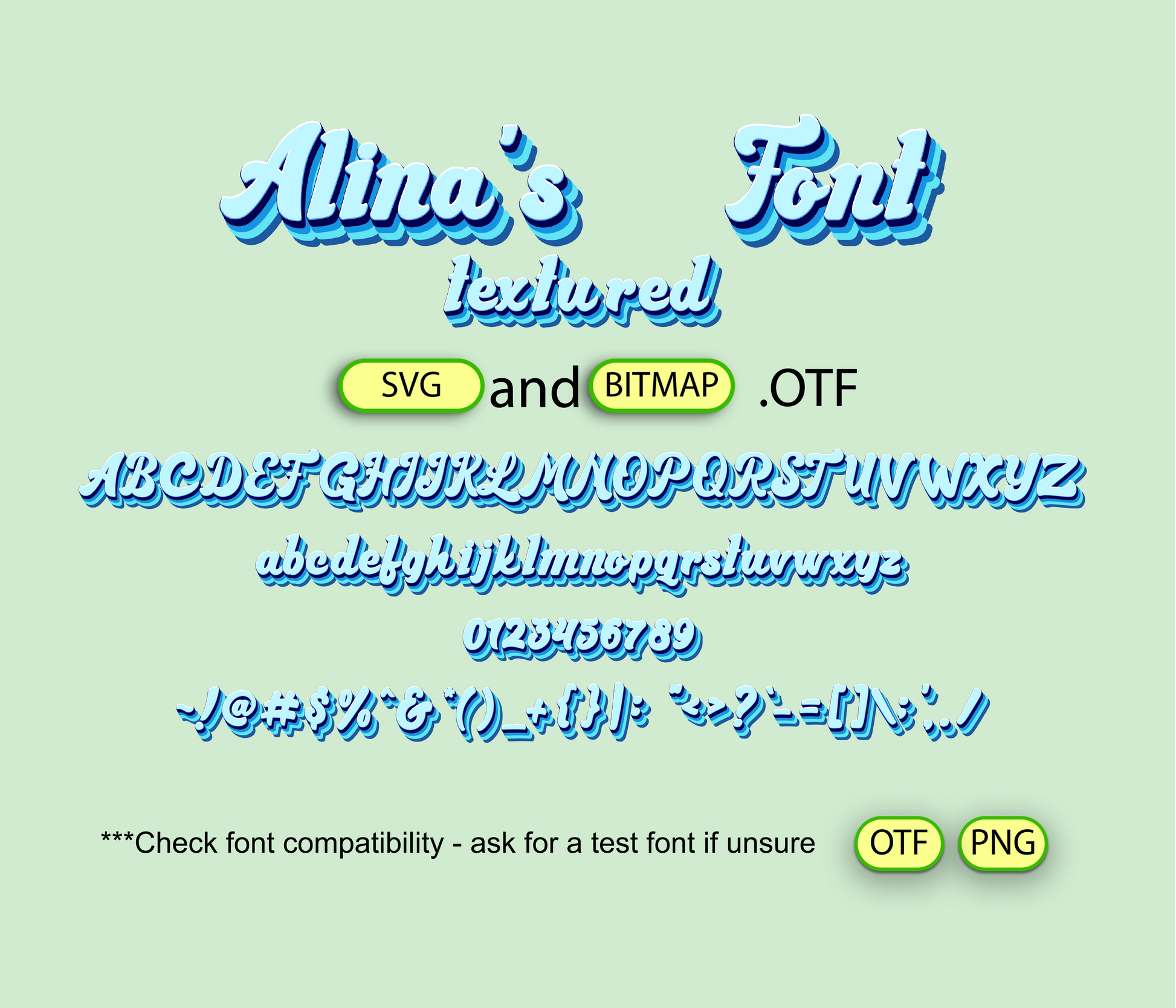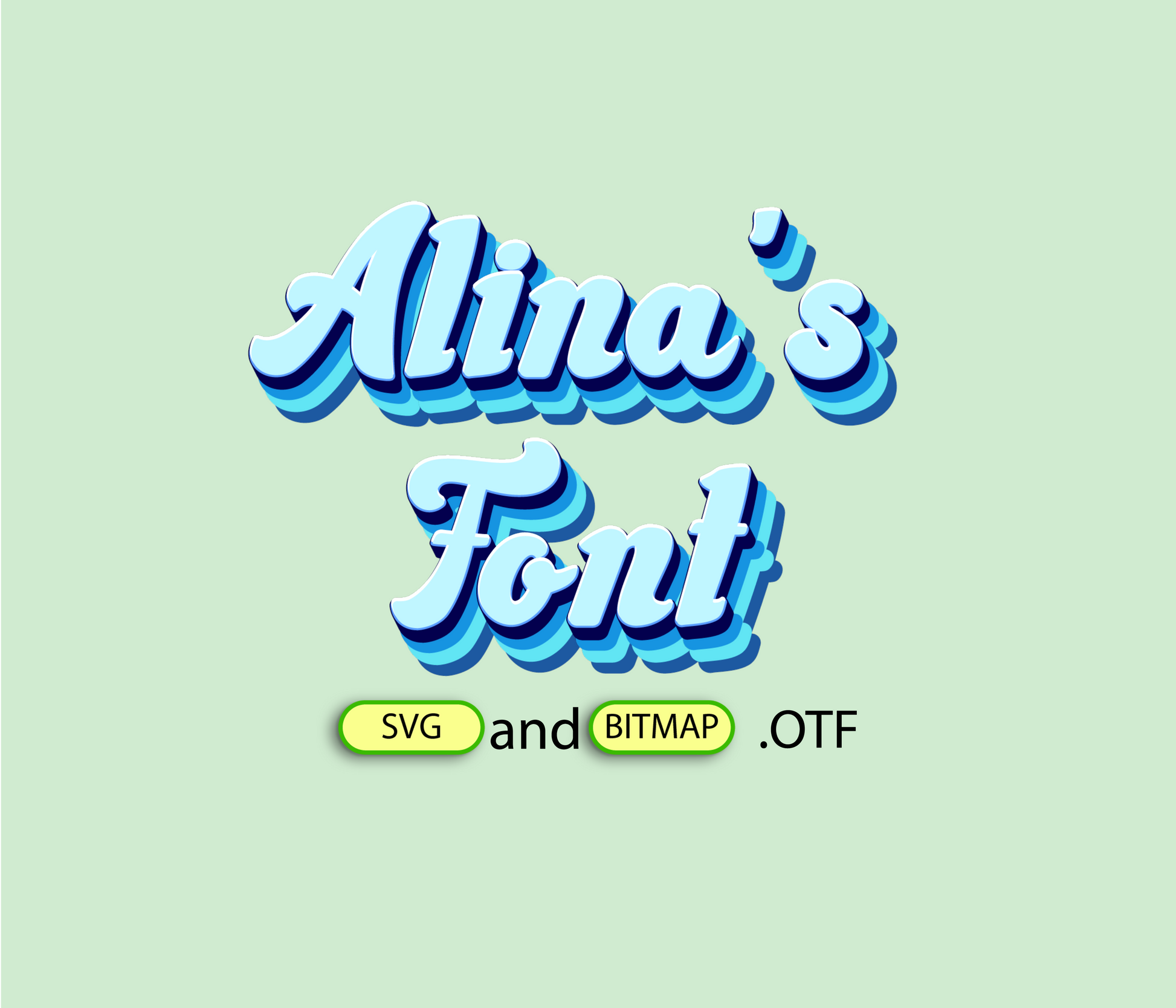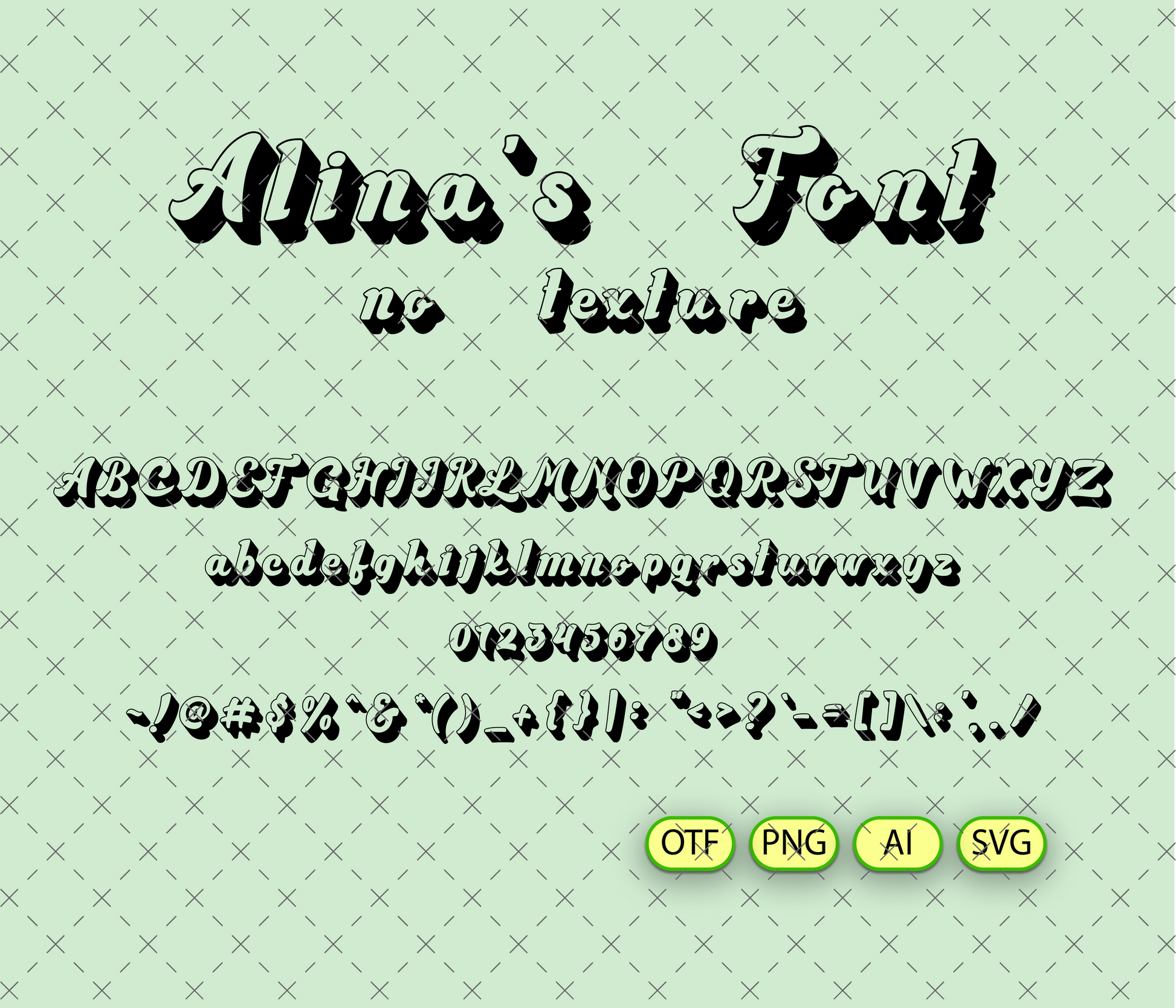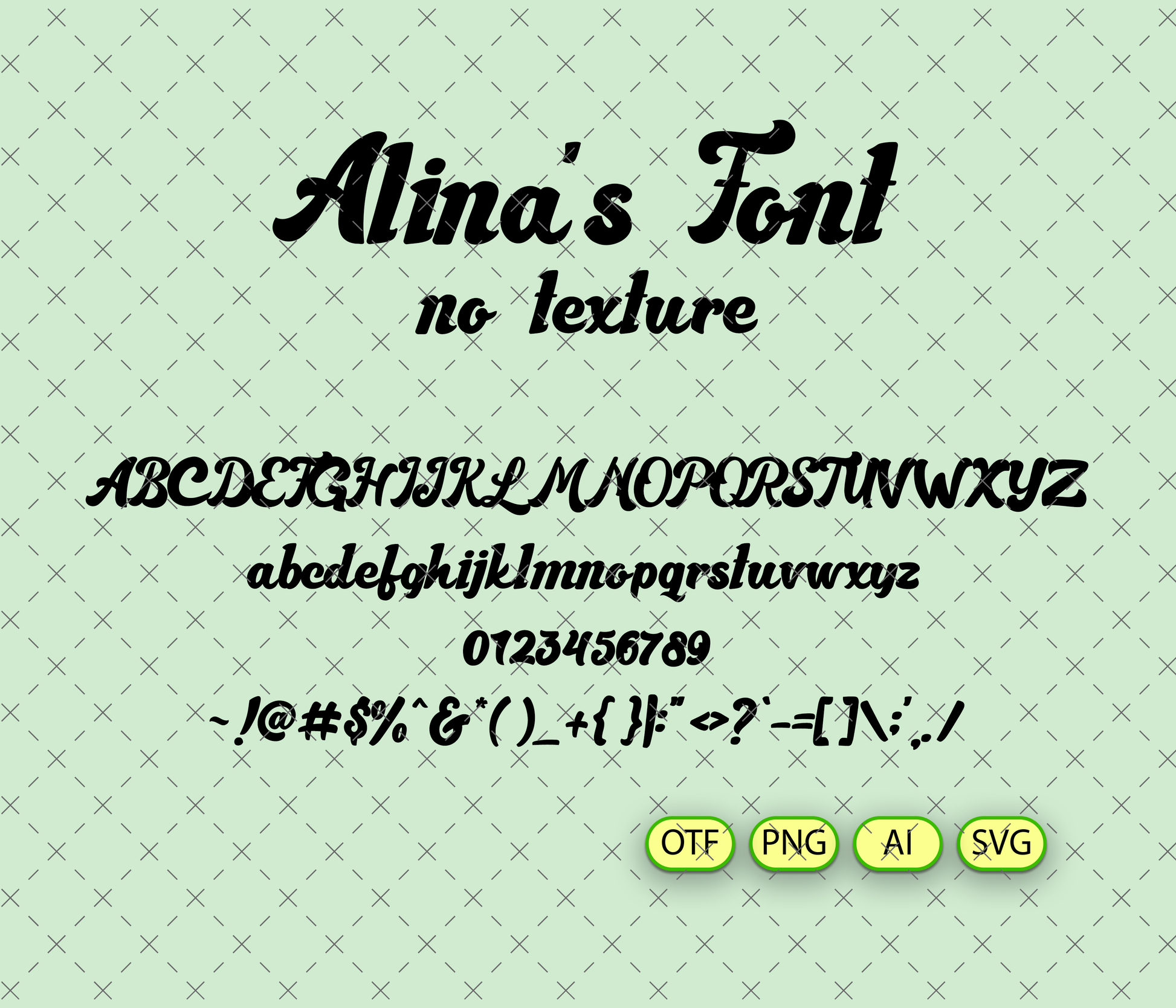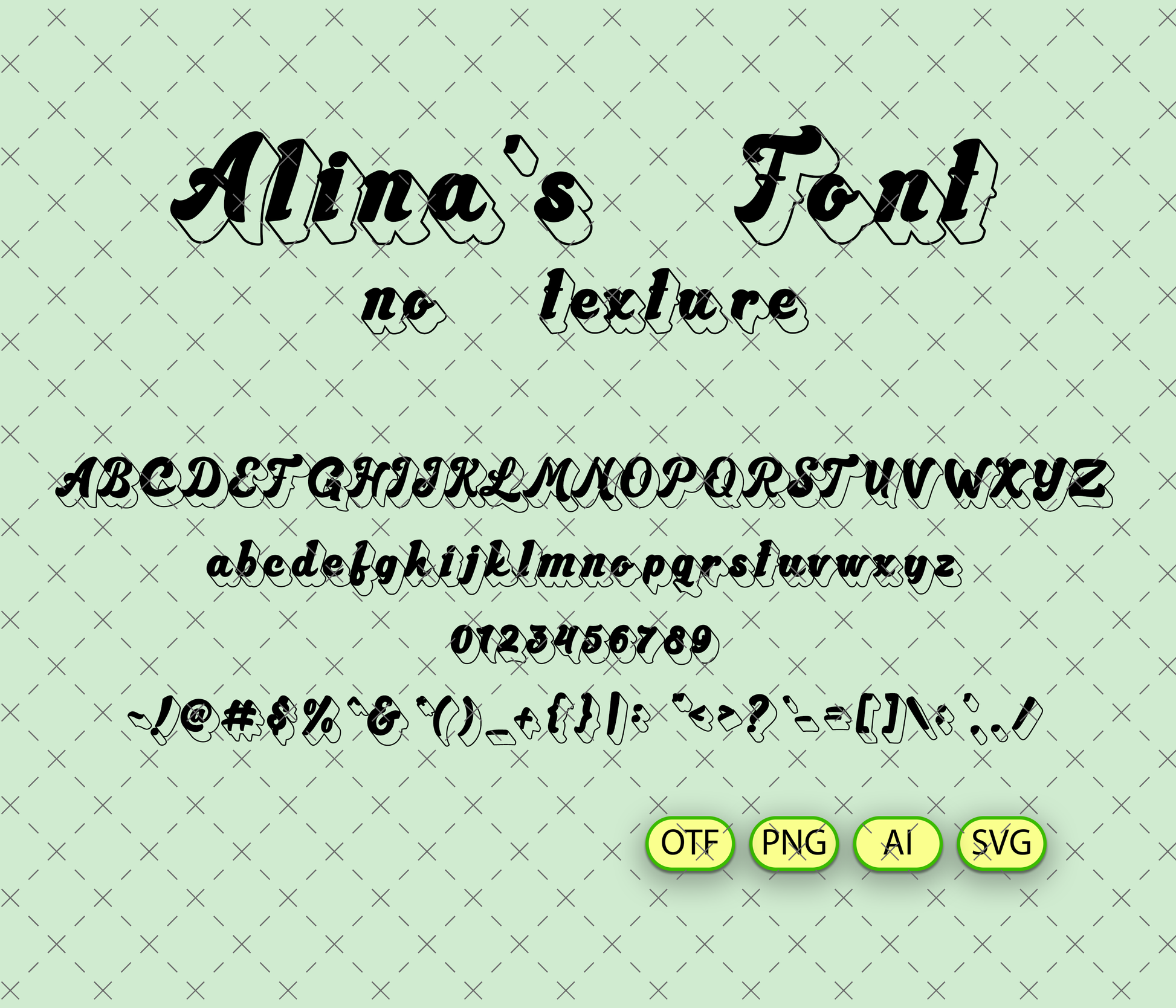
Groovy Blue Font Textured
Step into the funky paradise of bell-bottom bravado and dancefloor shimmer with our Groovy Blue Font Textured, capturing the essence of glittering disco balls and soulful seventies celebration culture. Perfect for retro party enthusiasts, vintage event coordinators, nostalgia media producers, and groovy design specialists, this font brings the bold, free-spirited character of legendary seventies dancefloor narratives to your projects. Create head-turning invitations, commercial goods, or web content with the electric presence of funky disco era storytelling.
Funky Typography for Disco Design & Groovy Seventies Projects
Our Groovy Blue Font Textured features bold, soulfully shaped letterforms with shimmering dancefloor textures reflecting the world of glittering mirror balls and legendary seventies nightclub wonder.
Our font pays tribute to the world of disco dancefloor wonder and generation-spanning seventies groove culture, empowering your projects with its bold and free-spirited character. Whether crafting celebration materials, designing funky products, or adding a disco touch to personal projects, this font communicates the electric essence of groovy seventies magic. Ready to ignite dancefloor fever into your creations? This font is your key to attention-grabbing, impactful design.